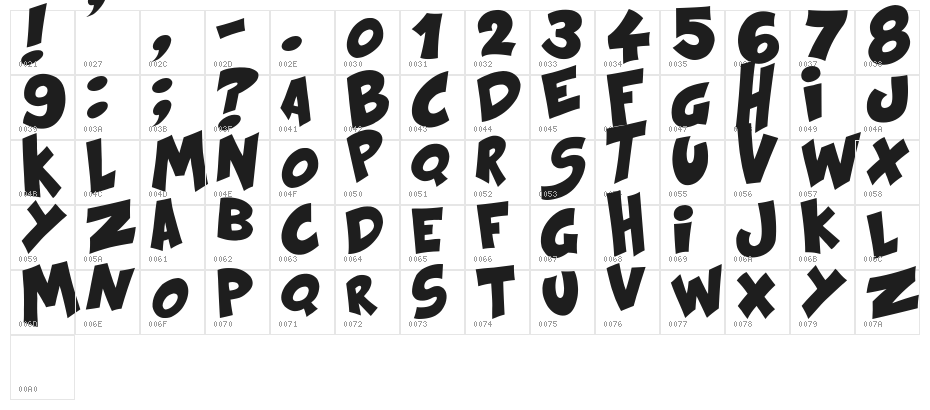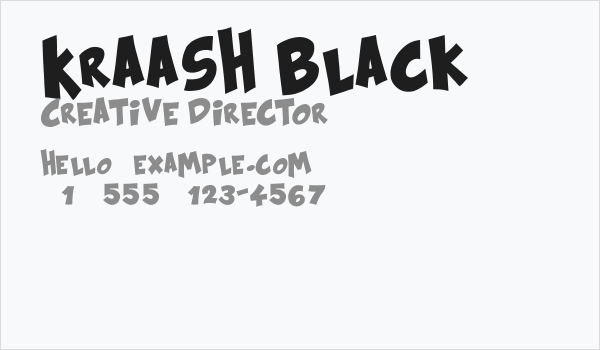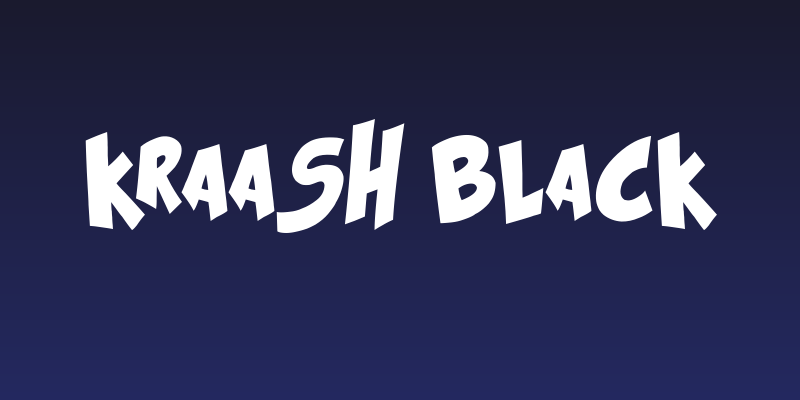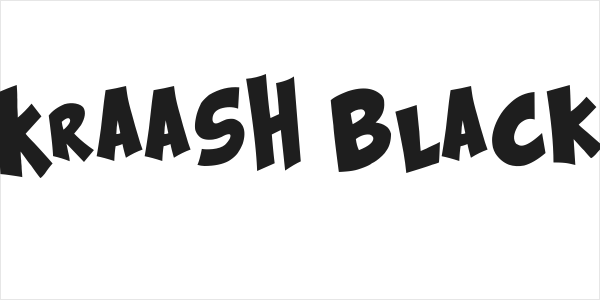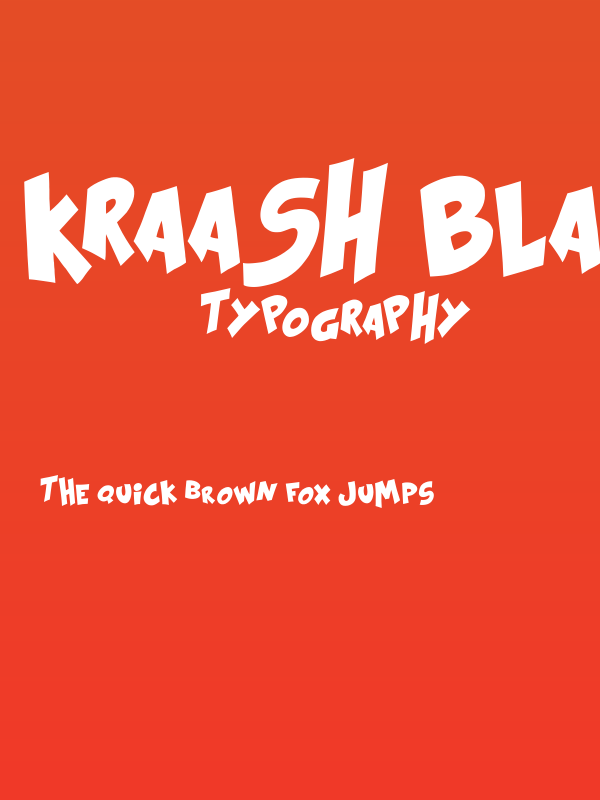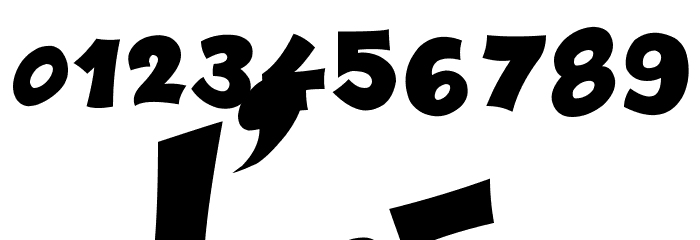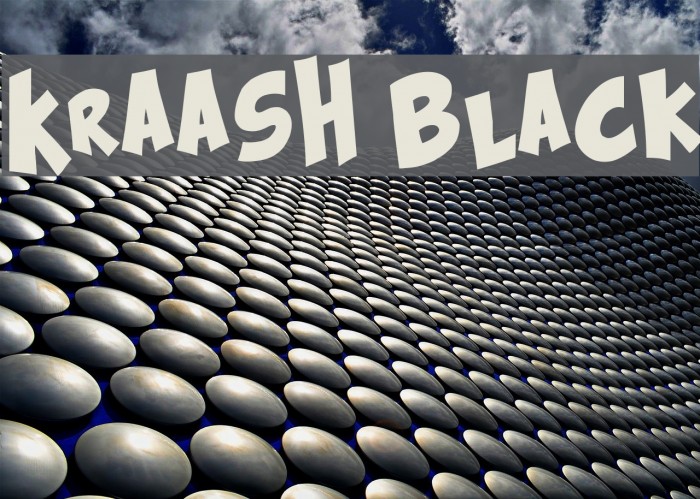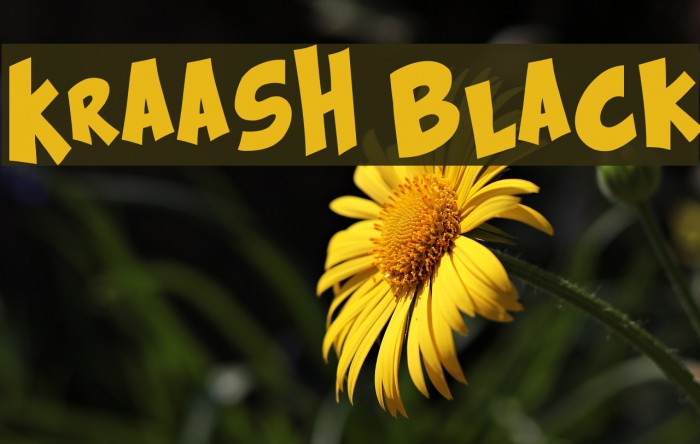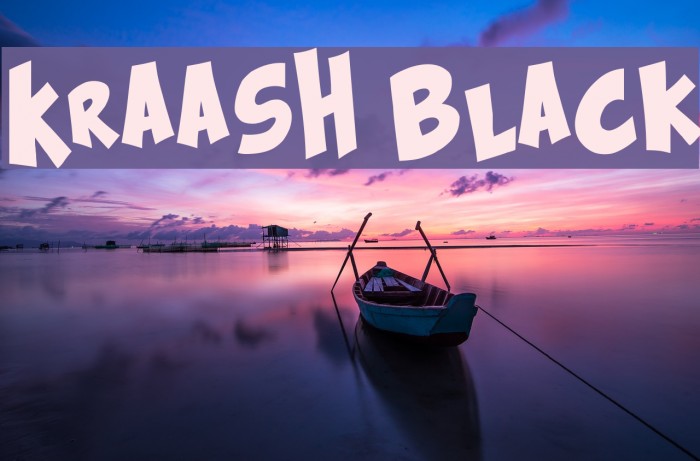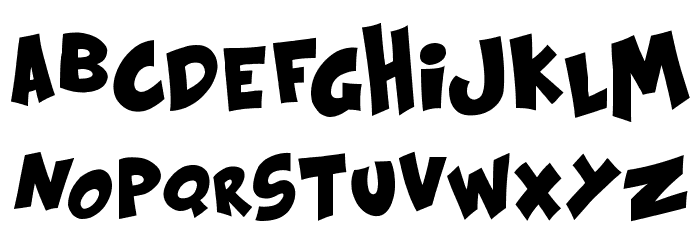
Kraash Black Font
This font features a bold and playful design with exaggerated curves and angles, giving it a dynamic and energetic appearance. The characters are slightly irregular, adding a whimsical touch that makes it stand out. The uppercase and lowercase letters maintain a consistent style, with a strong emphasis on boldness and thickness. The numbers and special characters follow the same playful aesthetic, making the font suitable for creative and informal designs. Its unique style is perfect for projects that require a fun and engaging visual impact.
| Overall Style | Playful, Energetic, Whimsical |
| Proposed Projects | Ideal for comic books, children's books, playful branding, posters, and event invitations. |